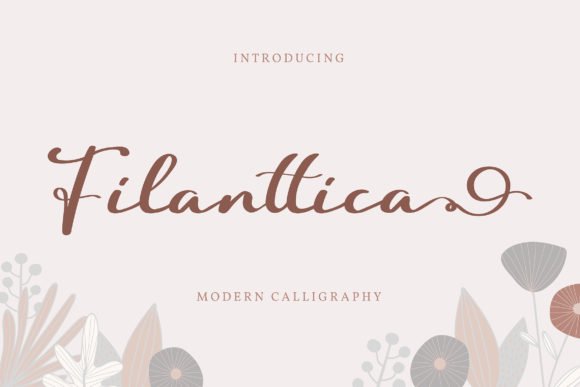
The Art of Adding a Personal Touch with Filanttica Font
As I sat at my desk, surrounded by scraps of paper and half-empty cups of coffee, I was brainstorming ideas for the perfect wedding invitation. I wanted something elegant, yet unique – a reflection of the couple’s love story. That’s when I stumbled upon the Filanttica Font, and I knew I had found the perfect match.
This beautiful cursive font is more than just a pretty face – it’s a versatile tool for designers looking to add a personal touch to their projects. With its elegant handwritten style, Filanttica Font is perfect for wedding invitations, thank you cards, quotes, and logos, making it a valuable asset for any designer looking to elevate their designs.
Filanttica Font Key Features
- Size: The font comes in multiple weights, ranging from Thin to ExtraBold, allowing for versatility in design applications.
- Unique Characteristics: Filanttica Font features a unique blend of modern and classic elements, creating a distinctive aesthetic.
- Font Pairing: The font is designed to be paired with other fonts, allowing for a wide range of design possibilities.
Design Review: Filanttica Font
At first glance, Filanttica Font appears to be a beautiful, elegant script font. It works well in ✨ situations where a touch of sophistication is needed, such as in luxury branding or high-end packaging design. The fluid, handwritten feel of the font is sure to capture attention and add a personal touch to any design project.
The font’s versatility is another major advantage. It can be used in a variety of contexts, from digital interfaces to print materials, making it a great addition to any designer’s toolkit.
- ⚠️ The font may not be the best choice for body text, as it can be difficult to read in smaller sizes or at a glance.
- ⚠️ Some characters, such as the lowercase “l” and “i”, may be easily confused with one another, which can lead to design mistakes.
- ⚠️ The font’s irregularities can make it challenging to use in certain design applications, such as in logos or icons where precision is crucial.
Overall, Filanttica Font is a beautiful and versatile script font that is well-suited for certain design projects. While it may have some limitations, its unique character and elegant feel make it a great addition to any designer’s toolkit.
Practical Application Guide for Filanttica Font
For best results, use the Filanttica Font in combination with bold or italic text to create visual interest.
Use the Filanttica Font to add a touch of elegance to your designs, such as in headings or titles.
The Filanttica Font is perfect for:
- Headings and titles for presentations and documents
- Editorial and publishing designs
Experiment with different font sizes, colors, and combinations to create unique and eye-catching designs.